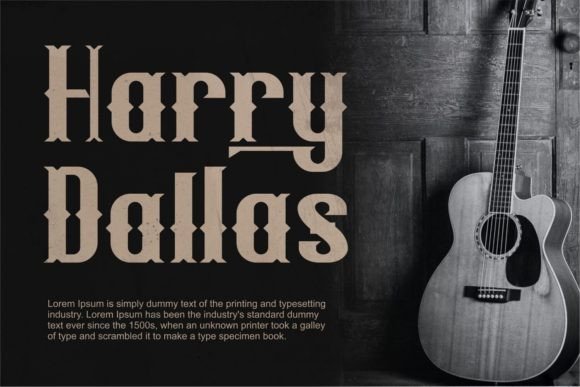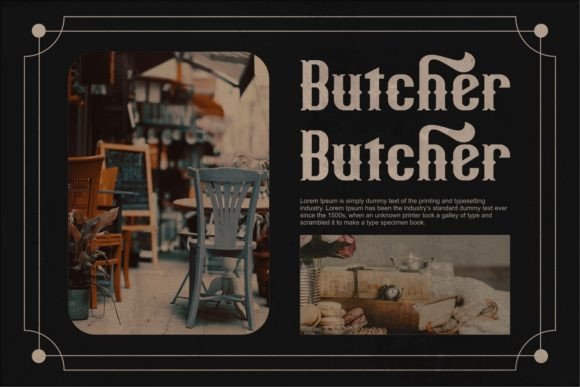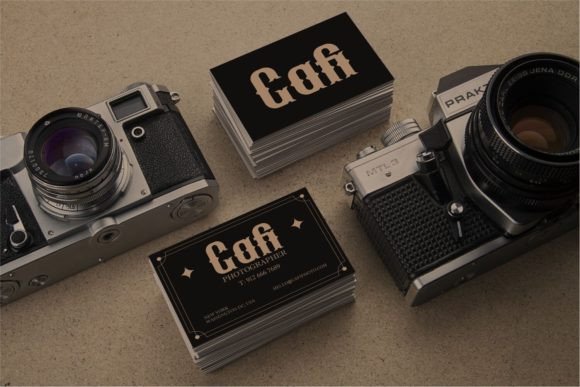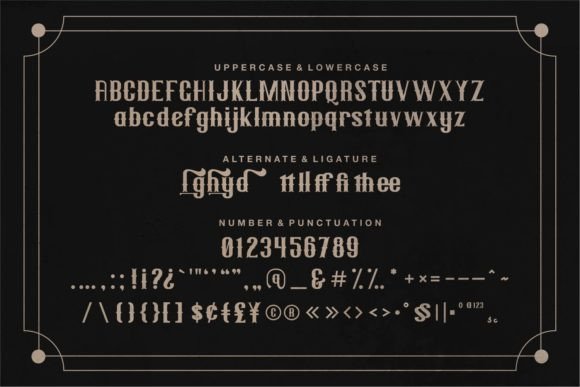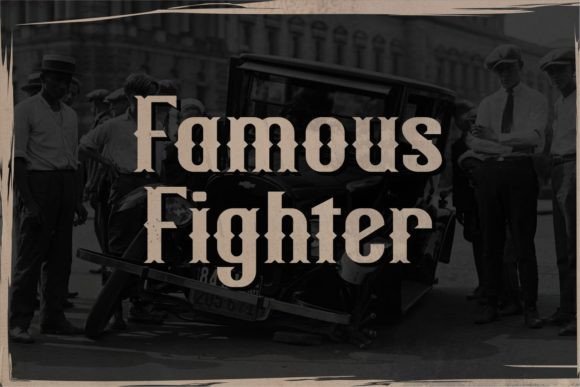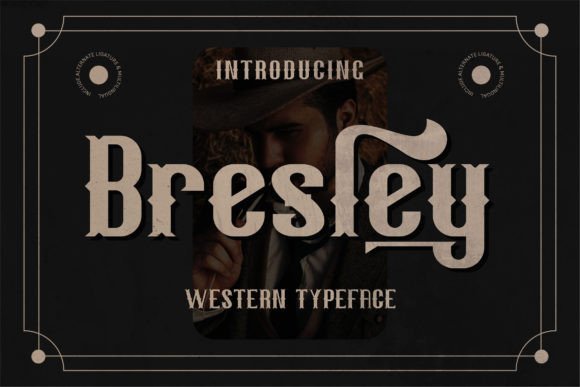
Bresley Font: Saddle Up for a Wild West Design Ride!
Howdy, designers and crafters! Are you ready to add a dash of the Wild West to your projects? Look no further than the Bresley font, a bold and rugged Western font that’s perfect for bringing a hint of frontier flair to your designs. With its split serifs and bold lettering, Bresley is sure to evoke the spirit of the American West and leave your audience feeling like they’re riding off into the sunset.
The Story Behind Bresley
Bresley is more than just a font – it’s an experience. Imagine dusty trails, old saloon signs, and the rough-riding cowboys of the Wild West. This font is designed to capture the essence of that era, with a bold and rugged aesthetic that’s sure to add a touch of authenticity to your designs. Whether you’re working on a branding project, a packaging design, or a craft project, Bresley is the perfect choice for anyone looking to add a little bit of the Wild West to their work.
Design Features of Bresley
So what makes Bresley so special? For starters, its split serifs give it a unique and rugged look that’s unlike any other font out there. The bold lettering is perfect for making a statement, and the font’s overall aesthetic is sure to evoke the spirit of the Wild West. Here are just a few of the design features that make Bresley stand out:
- Split Serifs: The split serifs in Bresley give it a rugged and distressed look that’s perfect for adding a touch of the Wild West to your designs.
- Bold Lettering: The bold lettering in Bresley is perfect for making a statement and grabbing the attention of your audience.
- Western-Inspired Aesthetic: From the font’s rough-riding spirit to its dusty, sun-baked aesthetic, Bresley is the perfect choice for anyone looking to add a little bit of the Wild West to their designs.
Using Bresley in Your Designs
So how can you use Bresley in your designs? The possibilities are endless! Here are just a few ideas to get you started:
- Branding Projects: Use Bresley to add a touch of the Wild West to your branding projects, from logos to packaging design.
- Craft Projects: Bresley is perfect for craft projects, from handmade cards to DIY signs and decorations.
- Sign Design: Use Bresley to create eye-catching signs that evoke the spirit of the Wild West.
Tips for Getting the Most Out of Bresley
Here are a few tips for getting the most out of Bresley:
- Use it sparingly: Bresley is a bold font, so use it sparingly to avoid overwhelming your design.
- Pair it with other fonts: Try pairing Bresley with other fonts to create a unique and interesting look.
- Experiment with colors: Bresley looks great in a variety of colors, from earthy tones to bold brights.
In conclusion, Bresley is a bold and rugged Western font that’s perfect for adding a hint of frontier flair to your designs. With its split serifs and bold lettering, Bresley is sure to evoke the spirit of the American West and leave your audience feeling like they’re riding off into the sunset. So why wait? Saddle up and let Bresley bring that frontier charm to your projects! 🤠🌵
Whether you’re a designer, crafter, or just someone who loves the Wild West, Bresley is the perfect choice for anyone looking to add a little bit of that rugged, cowboy spirit to their work. So go ahead, give Bresley a try, and see how it can add a touch of the Wild West to your designs!